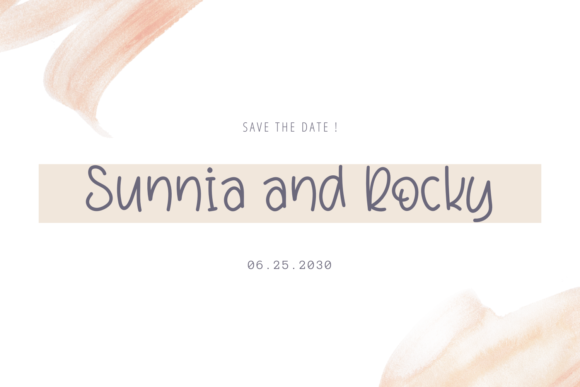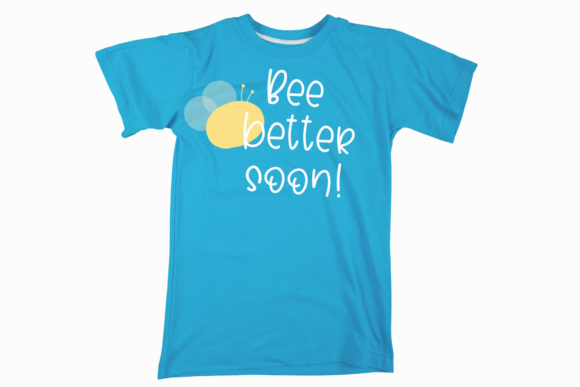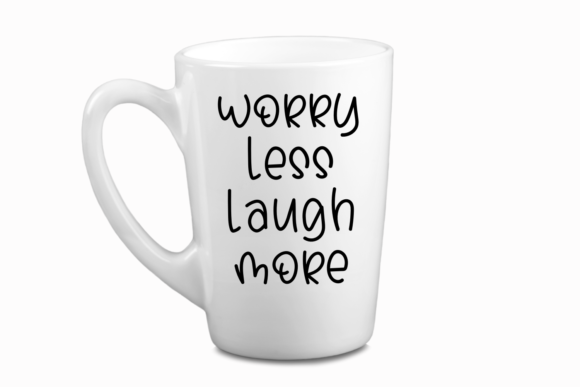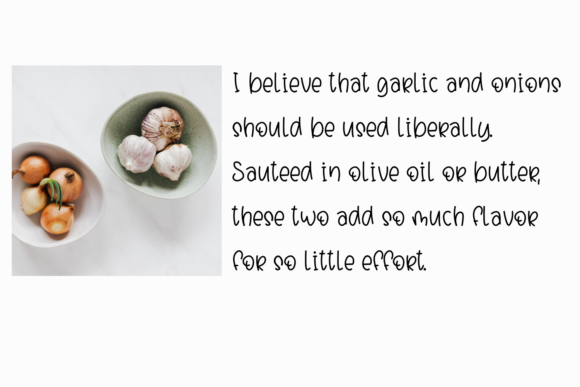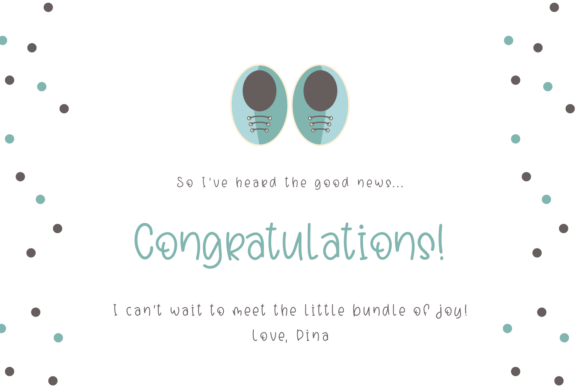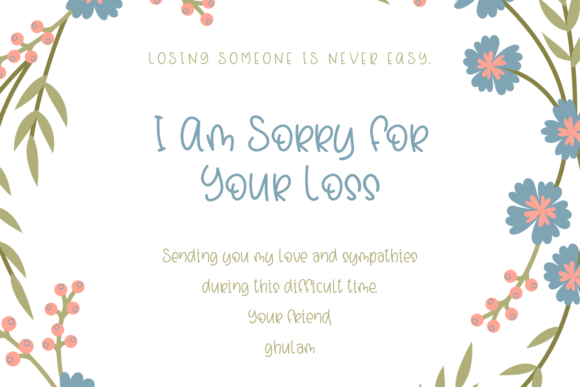
Introducing December Love Font: The Sweet and Quirky Handwritten Font for Your Creative Projects
Are you a designer, crafty person, or DIY enthusiast looking for a unique and charming font to add a personal touch to your creations? Look no further than the December Love Font! This sweet and quirky handwritten font is perfect for a wide range of applications, from branding and product packaging to invitations, quotes, t-shirts, labels, posters, and logos.
What Makes December Love Font So Special?
December Love Font is a carefully crafted handwritten font that exudes warmth, personality, and playfulness. Its unique and irregular strokes give it a charming, homemade feel that’s sure to capture the hearts of your audience. Whether you’re creating a brand identity, designing a product label, or crafting a beautiful invitation, this font is guaranteed to add a touch of whimsy and sophistication.
Key Features of December Love Font
- Handwritten with love: December Love Font is a genuine handwritten font, crafted with love and care to give it a personal and unique feel.
- Sweet and quirky: This font combines sweetness and quirkiness, making it perfect for designs that require a touch of playfulness and charm.
- Versatile: December Love Font is suitable for a wide range of applications, from digital designs to print materials.
- Easy to read: Despite its playful nature, this font is easy to read and understand, making it perfect for body text and captions.
Use Cases for December Love Font
December Love Font is an incredibly versatile font that can be used in various design projects, including:
- Branding and logos: Create a unique and memorable brand identity with December Love Font.
- Product packaging: Add a personal touch to your product labels and packaging with this charming font.
- Invitations and greeting cards: Create beautiful and heartfelt invitations and greeting cards with December Love Font.
- Quotes and posters: Use this font to create inspiring and eye-catching quotes and posters.
- T-shirts and apparel: Design unique and stylish t-shirts and apparel with December Love Font.
Why Choose December Love Font?
With so many fonts available, why choose December Love Font? Here are a few reasons:
- Unique and distinctive: December Love Font is a one-of-a-kind font that will set your designs apart from the rest.
- High-quality: December Love Font is a high-quality font that’s designed to deliver exceptional results.
In conclusion, December Love Font is a sweet and quirky handwritten font that’s perfect for designers, crafters, and DIY enthusiasts. Its unique and charming design makes it suitable for a wide range of applications, from branding and product packaging to invitations, quotes, t-shirts, labels, posters, and logos. With its ease of use, high-quality design, and versatility, December Love Font is an excellent choice for anyone looking to add a personal touch to their creative projects.